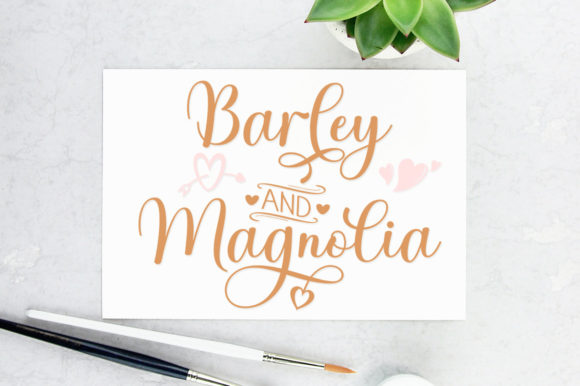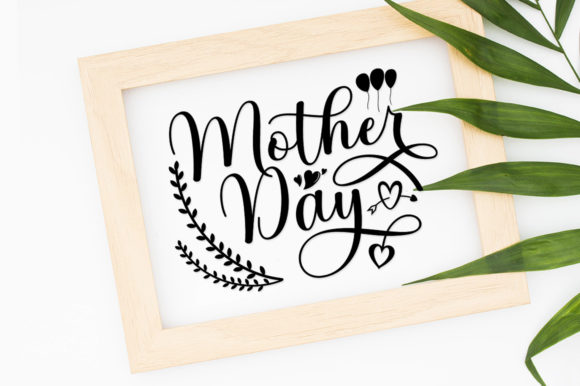
Brilliant Soulmates Font
db-ku.com - Script & Handwritten -- Brilliant Soulmates is a romantic and dainty script with characters that dance along the baseline. It will add a luxury spark to any design project that you wish to create! This font is PUA encoded which means you can access all of the amazing glyphs and ligatures with ease!